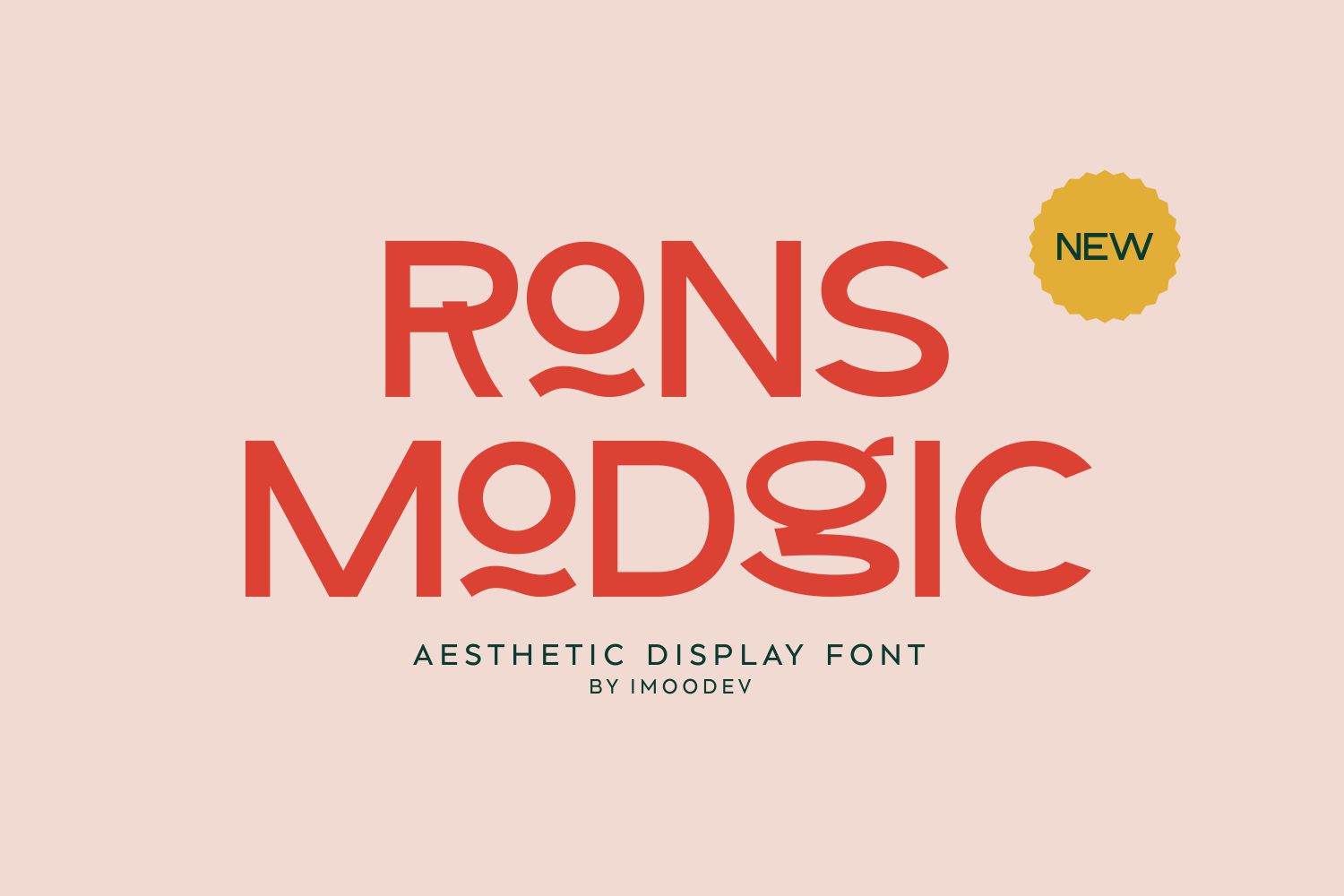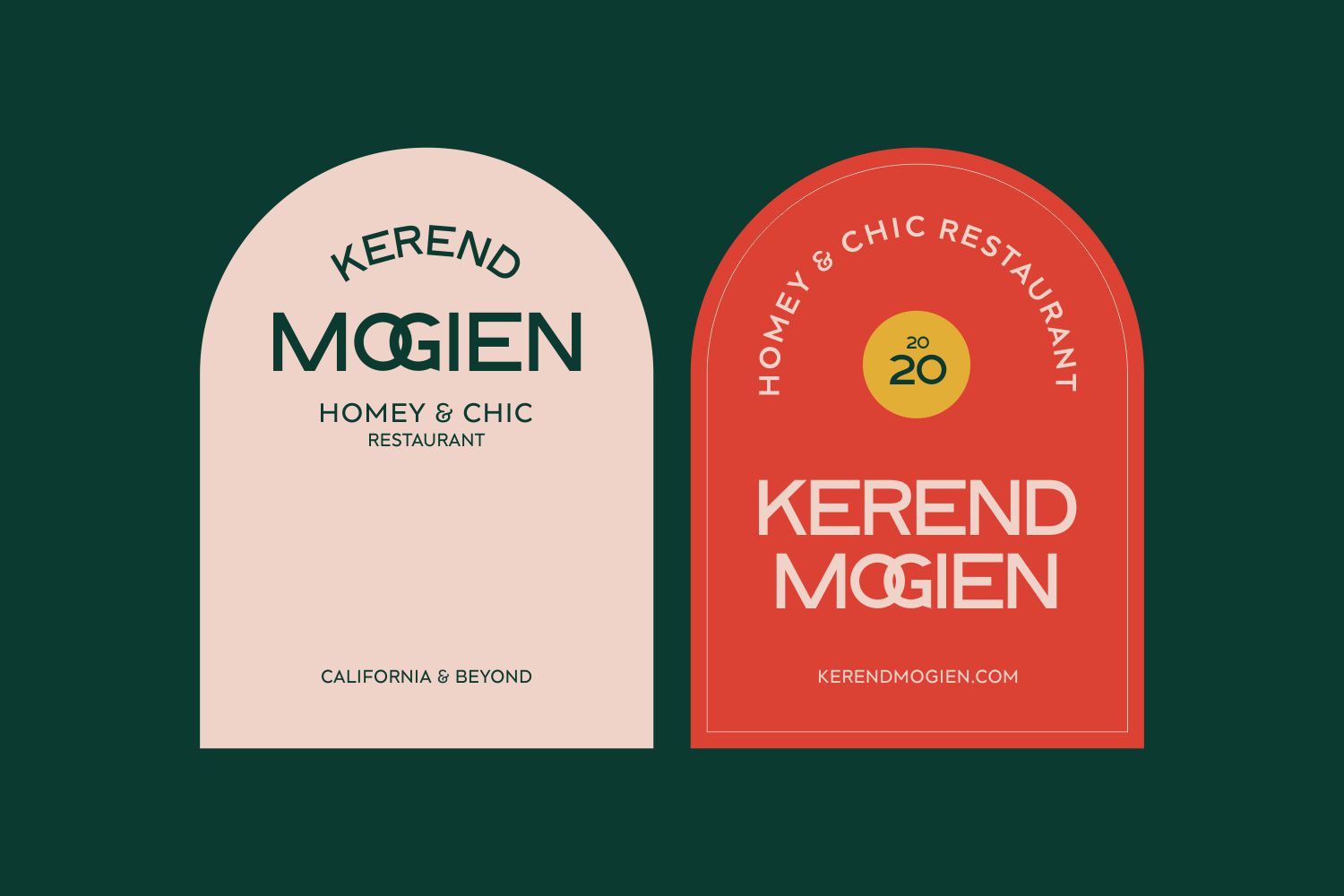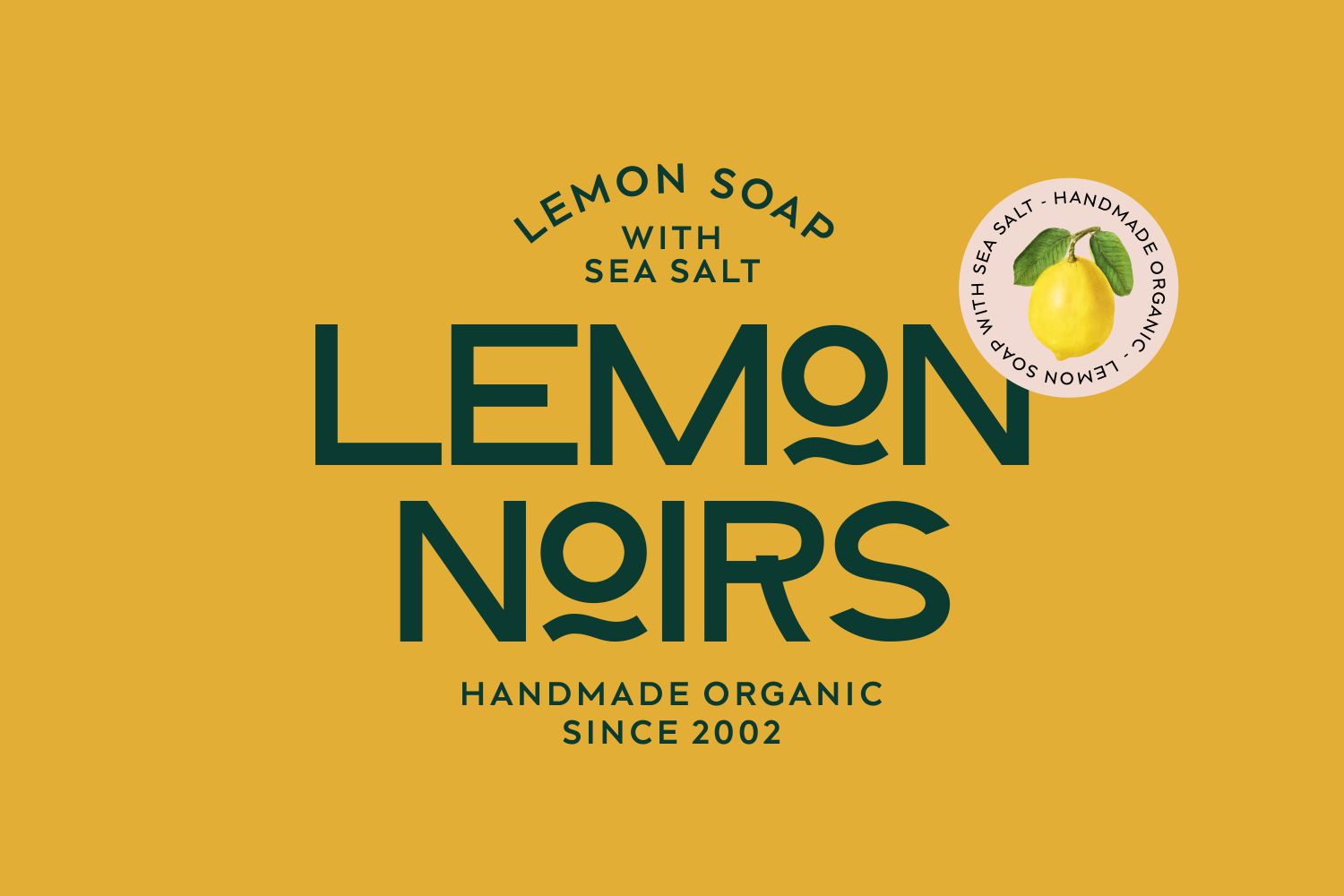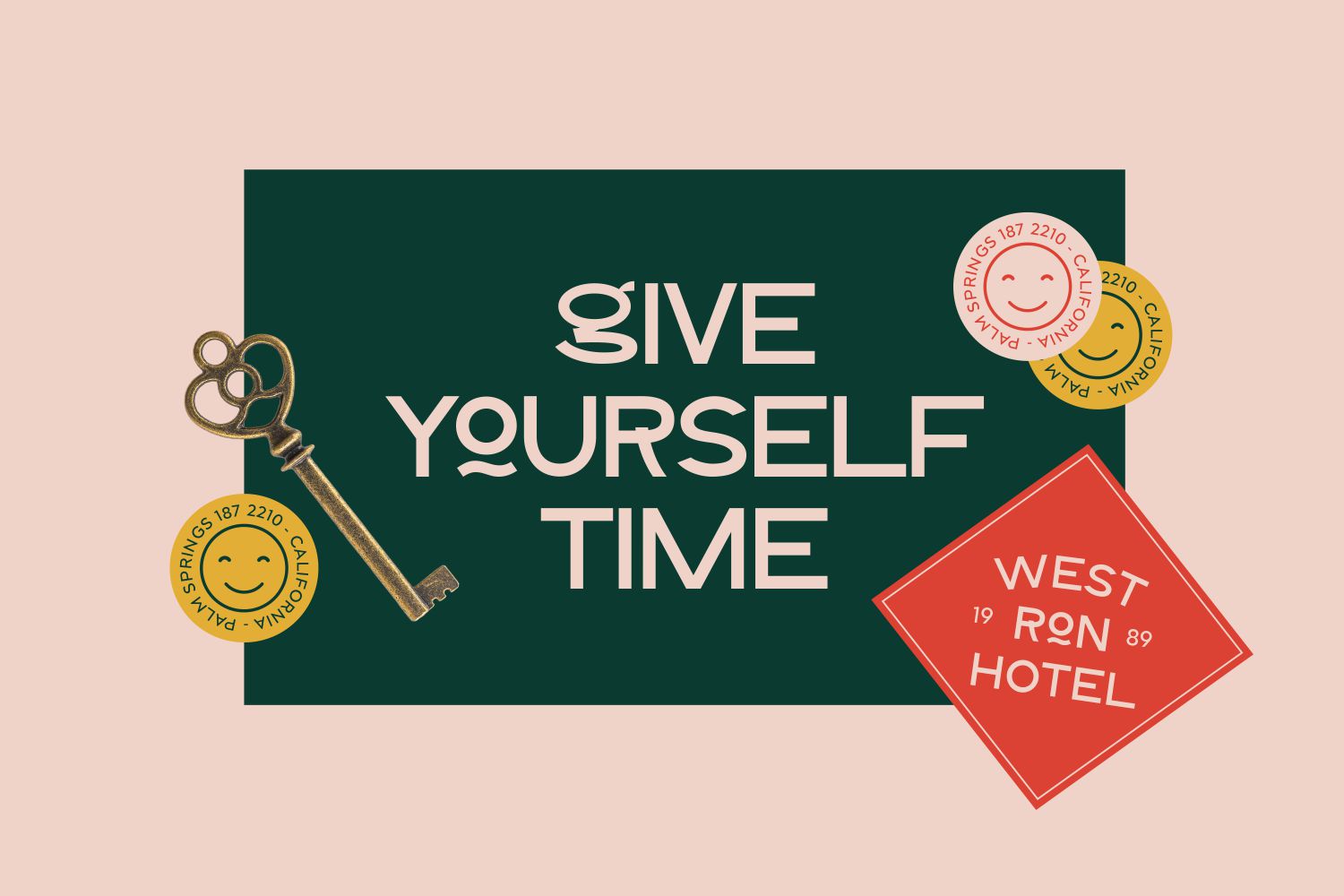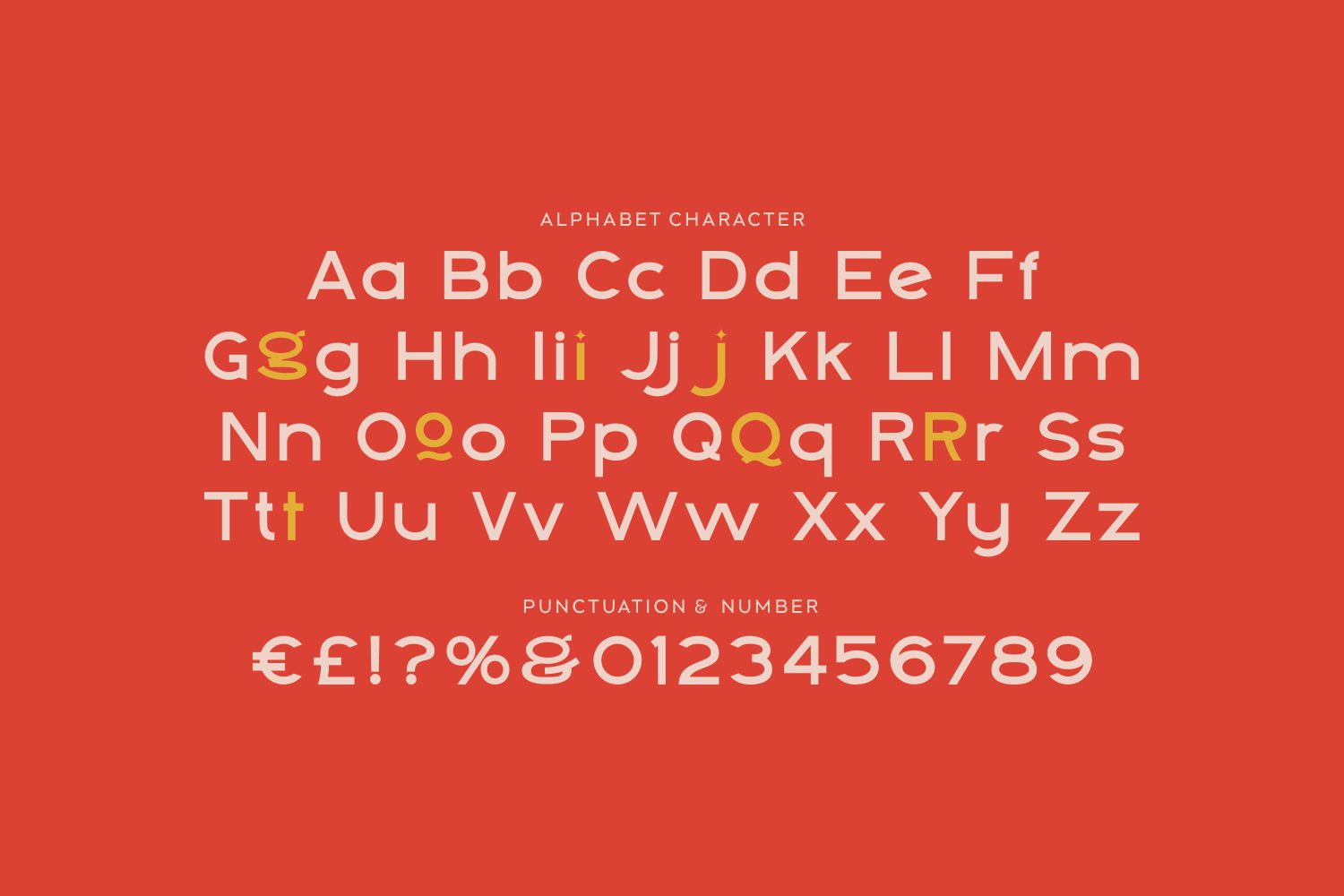
Rons Modgic
Rons Modgic is an aesthetic display font that blends modern geometry with playful creativity. Its bold letterforms are enhanced with unique accents and wavy strokes that bring a fresh and contemporary feel to your designs. This font is designed to stand out, making it ideal for logos, posters, packaging, and editorial projects where visual impact is essential. The combination of clean lines and artistic curves gives it a versatile character, suitable for both minimalistic and expressive branding.
With its modern flair and quirky details, Rons Modgic offers a distinctive voice for your creative work. It supports uppercase, lowercase, numbers, punctuation, and a variety of stylistic alternates, making customization easy. Perfect for lifestyle branding, fashion, food packaging, or creative campaigns, this font ensures your message is delivered with originality and charm.